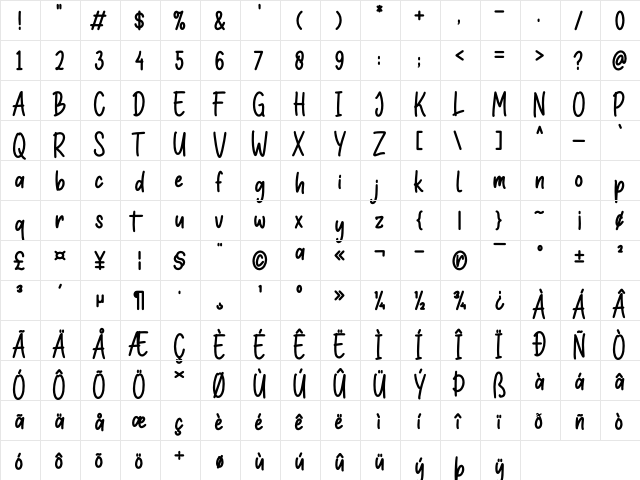
Sweety Strawberry Regular
| Designer | Siti Nurjanah |
Design Context for Sweety Strawberry Typeface
Sweety Strawberry is a composed and adaptable typeface that performs quietly and consistently across a wide range of design contexts.